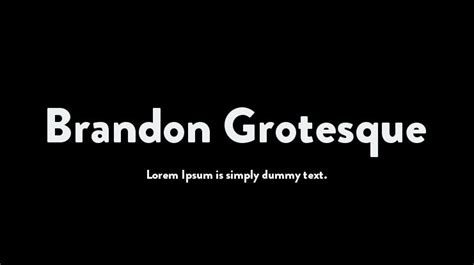
Download Brandon Grotesque Font Free: Your Ultimate Guide
Hey there, font enthusiasts! Ever stumbled upon a typeface that just screams modern elegance and versatility? Well, if you haven’t, let me introduce you to Brandon Grotesque . This font family has become a go-to choice for designers and creatives worldwide, and for good reason. It’s clean, readable, and boasts a unique charm that makes it perfect for everything from website headlines to print materials. And the best part? You can often find a Brandon Grotesque font free download option, which we’ll explore in detail. So, grab a coffee (or your favorite beverage), sit back, and let’s dive into everything you need to know about this fantastic font.
Unveiling the Allure of Brandon Grotesque Font
Brandon Grotesque isn’t just another font; it’s a design statement. Created by Hannes von Döhren, this geometric sans-serif typeface quickly gained popularity for its balanced proportions, friendly appearance, and excellent legibility. It’s the kind of font that effortlessly blends into various design projects, whether you’re working on a corporate branding project, a sleek website design, or even a simple personal blog. Its subtle nuances and clean lines make it incredibly versatile, and it’s a font that truly stands the test of time.
Imagine the impact of a well-chosen font on your design. Think about the feeling a particular typeface evokes. Brandon Grotesque, in particular, has a way of communicating professionalism while still retaining a touch of warmth. This is why it’s been used by countless brands and designers across the globe. From major corporations to small startups, Brandon Grotesque has found its place. And that popularity has lead to many searches for a Brandon Grotesque font free download , which we will discuss later. Its aesthetic appeal lies in its geometric foundation, which gives it a sense of order and structure. At the same time, the slight curves and open counters provide a human touch, preventing it from feeling cold or impersonal. This balance is what makes it so appealing to such a wide audience.
One of the key strengths of Brandon Grotesque is its readability, regardless of the size or medium. Whether you’re using it in large headlines or small body text, the font remains clear and easy on the eyes. This makes it an ideal choice for digital platforms, where readability is crucial. Designers often search for Brandon Grotesque font free download options specifically for this reason, as it allows them to maintain a consistent and user-friendly experience across all their digital materials. The font’s versatility is enhanced by its multiple weights and styles. It’s a comprehensive font family that includes light, regular, medium, bold, and black weights, each offering a unique character and suitable for diverse design needs. This range gives you the flexibility to create visual hierarchy and add emphasis where necessary.